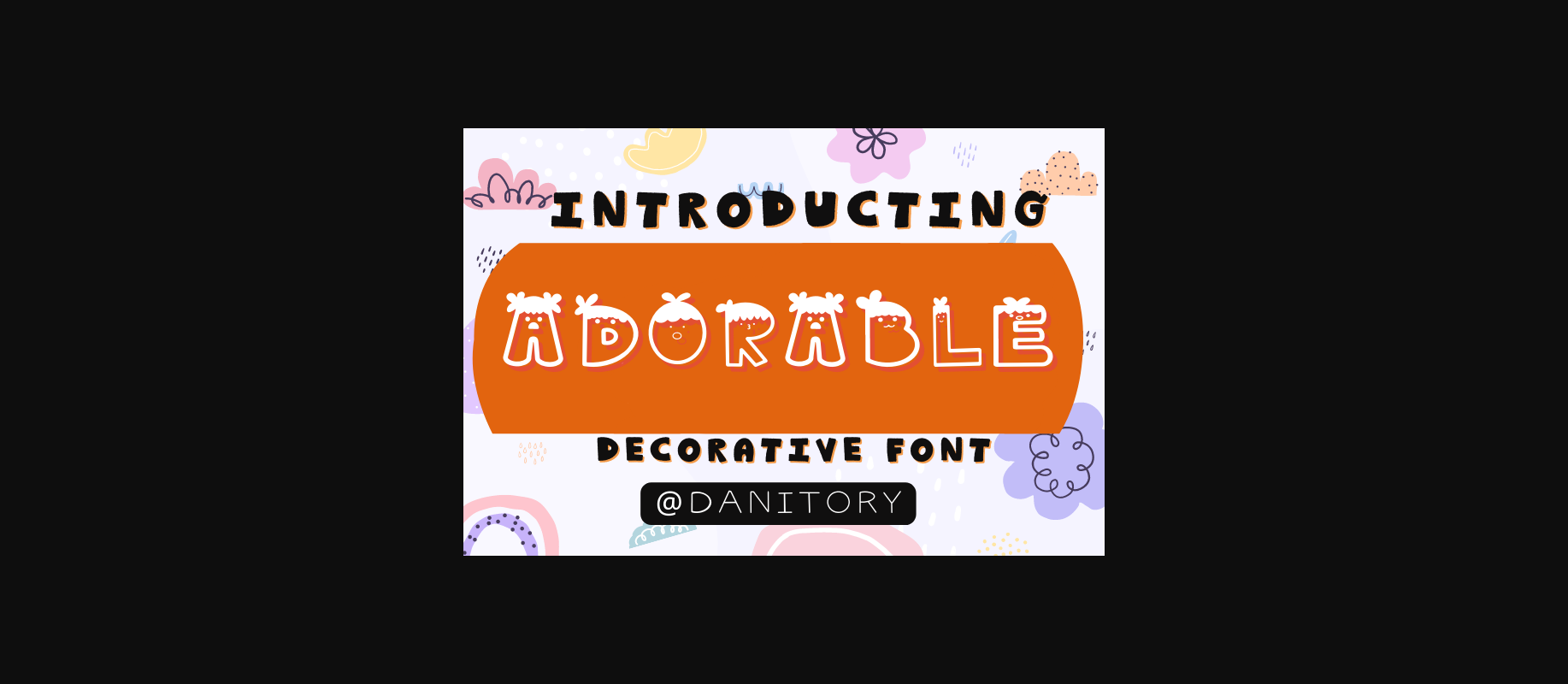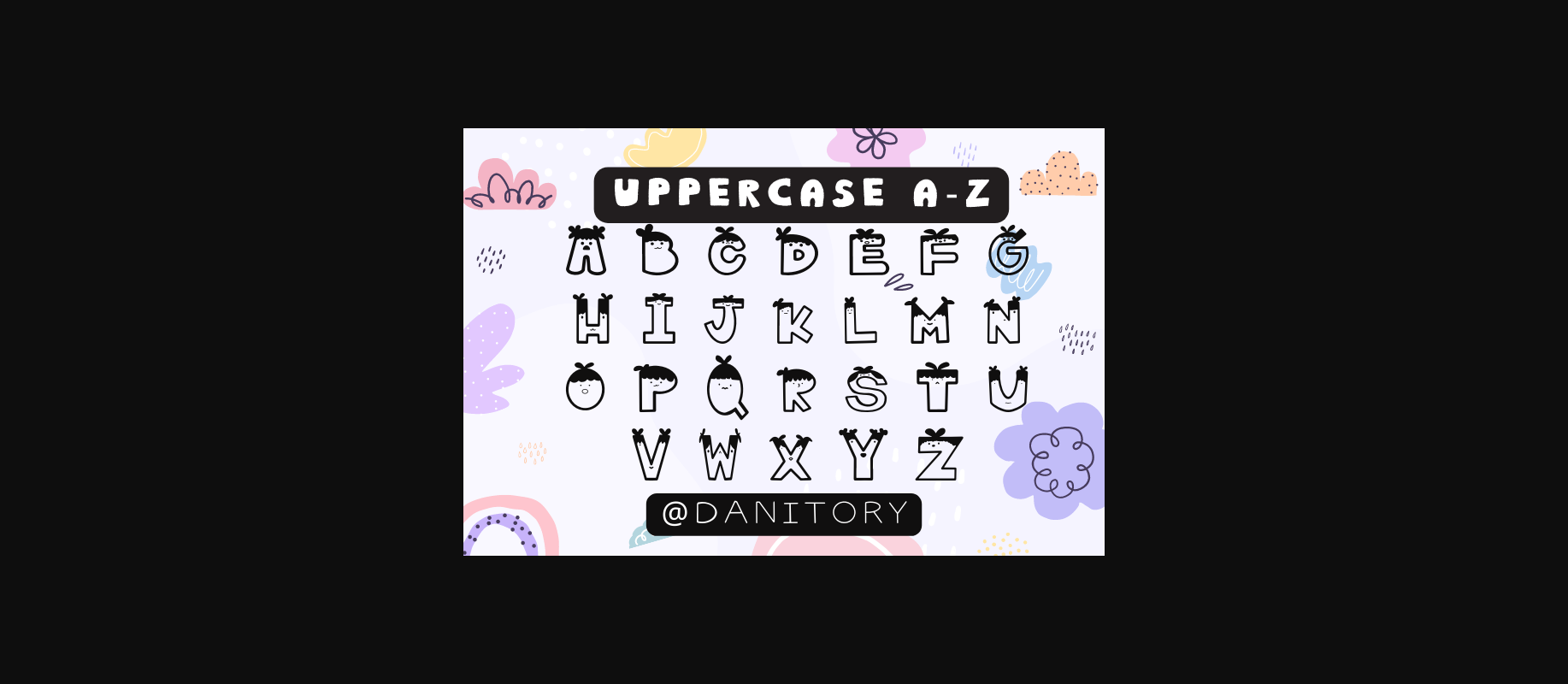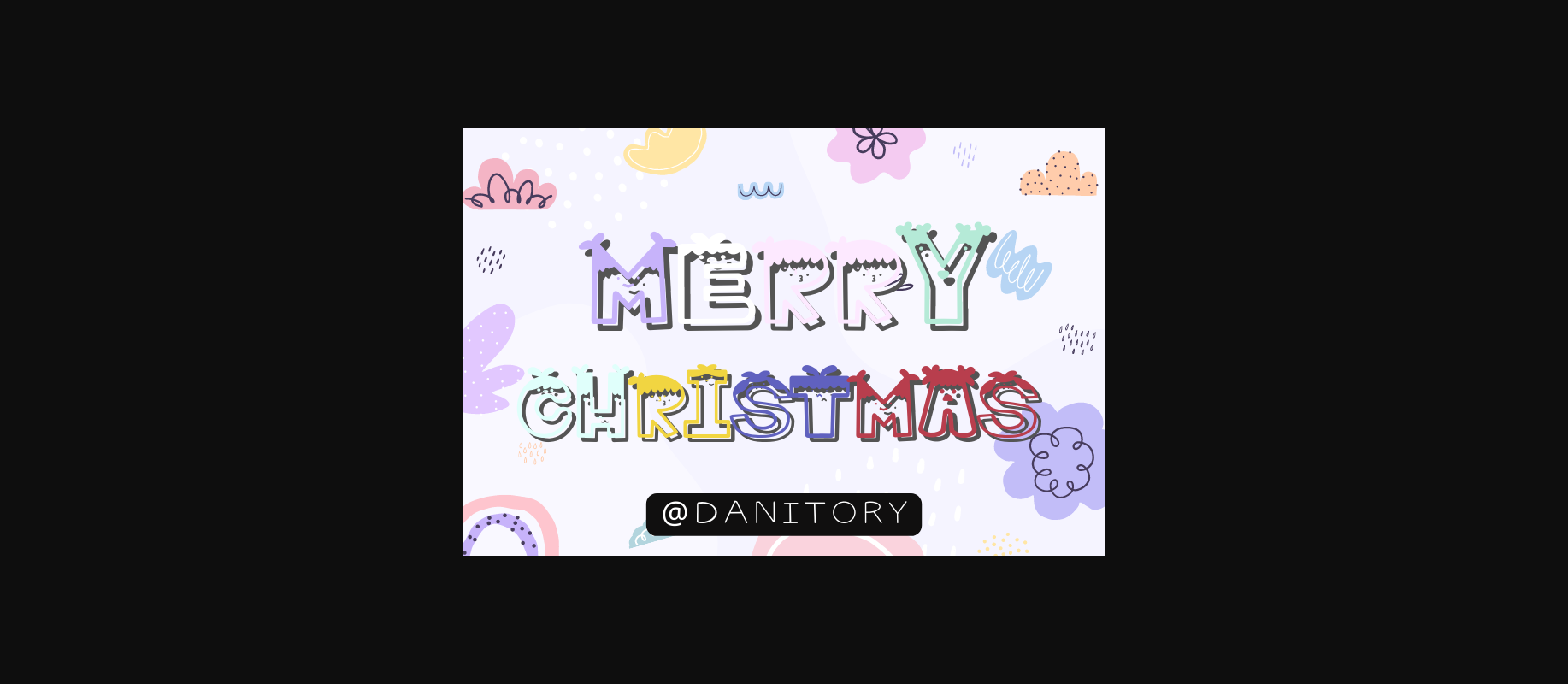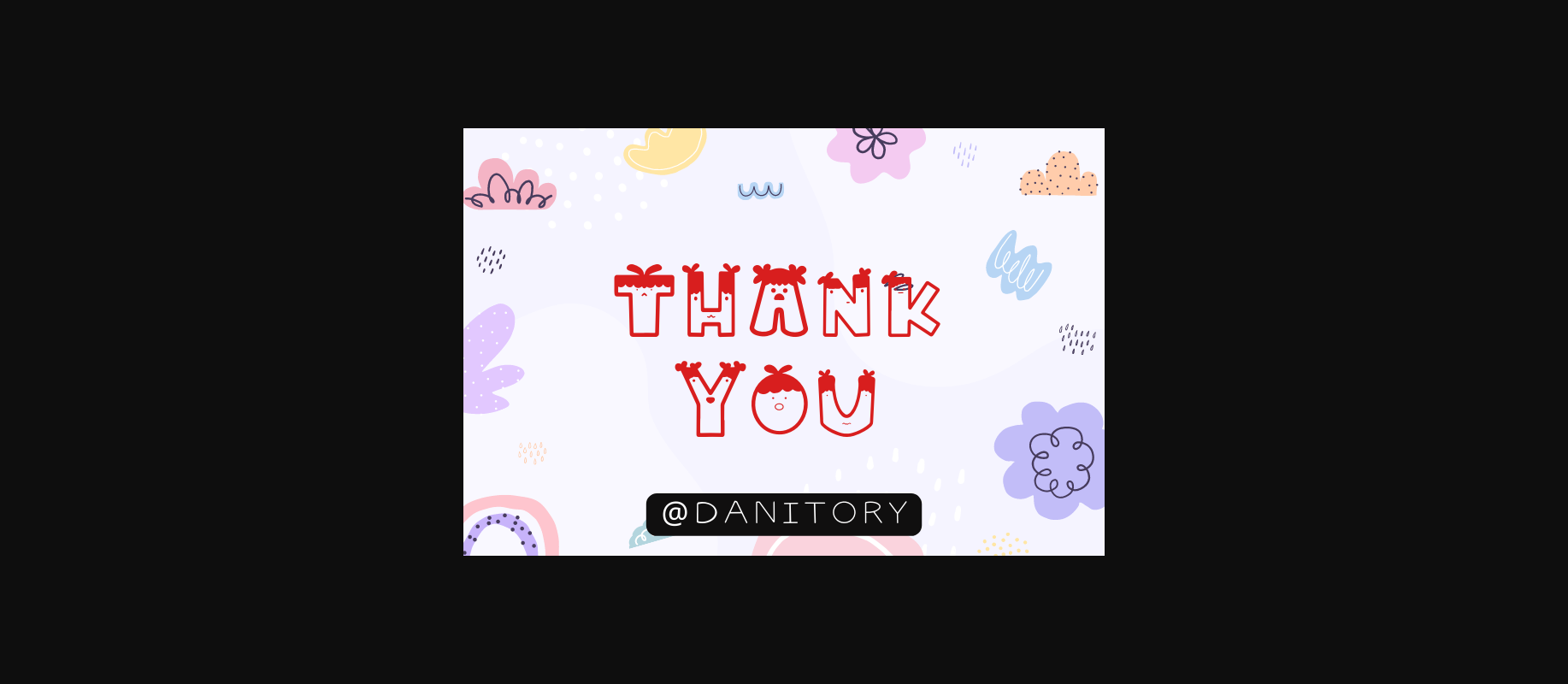
Adorable Font
About Adorable Font
Adorable is a cute and lovely decorative font. Masterfully designed to become a true favorite, this font has the potential to bring each of your creative ideas to the highest level!